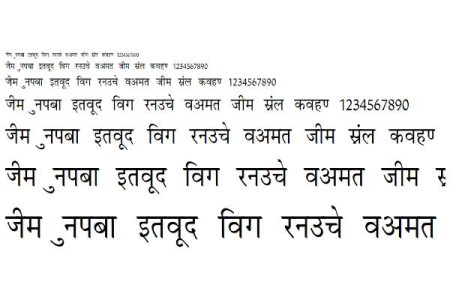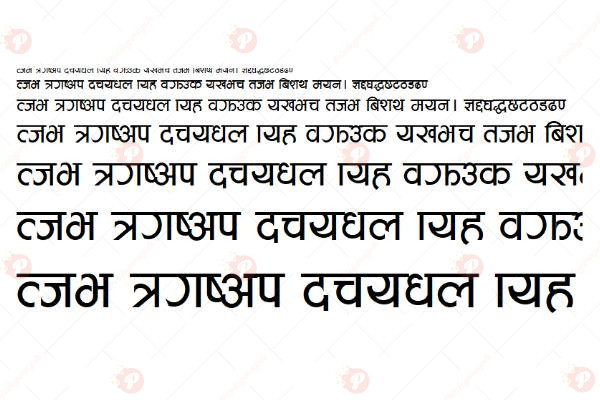
The Aakriti Font is a stylish and versatile typeface designed to add a touch of elegance to your creative projects. With its clean curves and modern look, Aakriti is perfect for branding, logo design, invitations, posters, social media graphics, packaging, and more.
Whether you are a designer, content creator, or business owner, this font will make your visuals stand out with sophistication.
Style: Modern / Elegant Typeface
Perfect for: Branding, Logos, Posters, Invitations, Digital & Print Projects
Make your designs unique with the timeless beauty of the Aakriti Font.
| Optimum Size | Large (Display / Poster) |